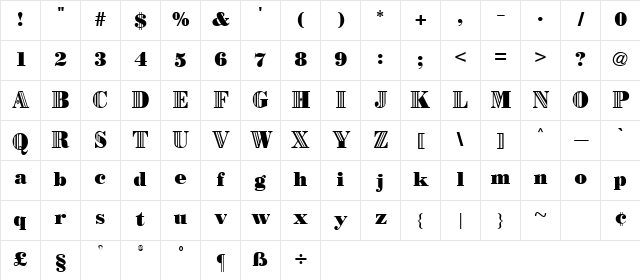
Orwell Regular Free Font
Orwell Regular
Design Context for Orwell
Orwell is a composed and adaptable typeface that performs quietly and consistently across a wide range of design contexts.